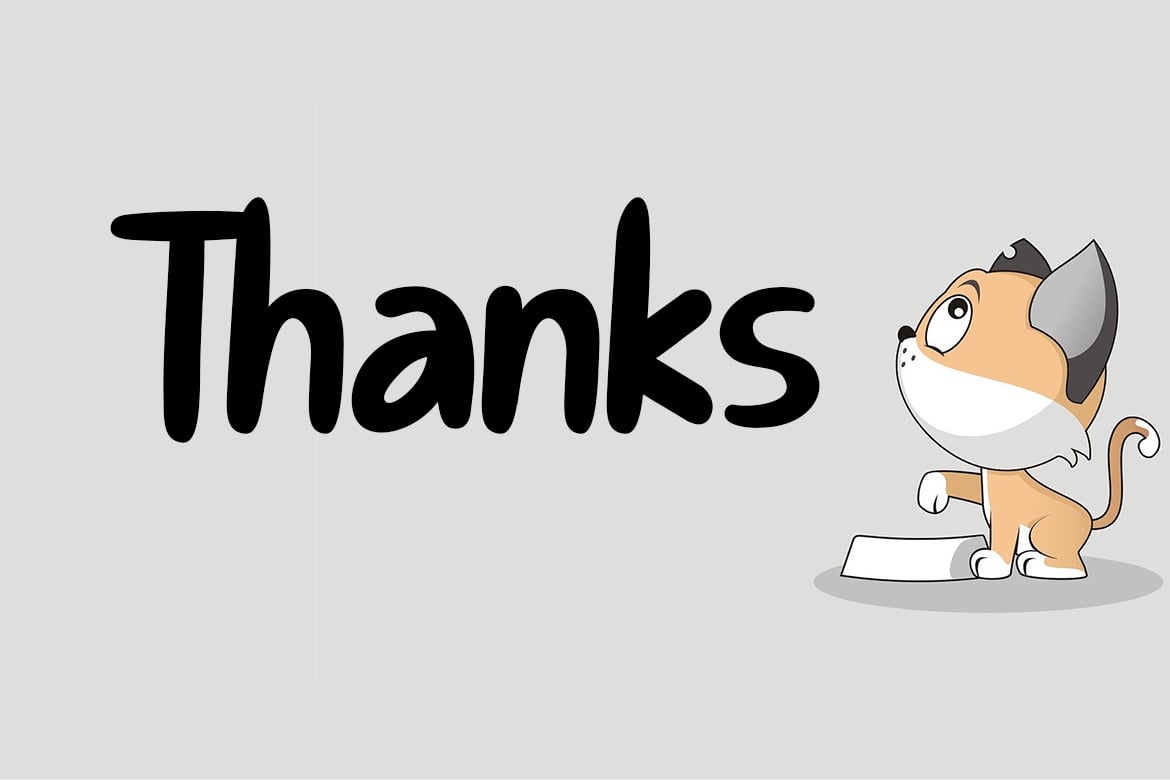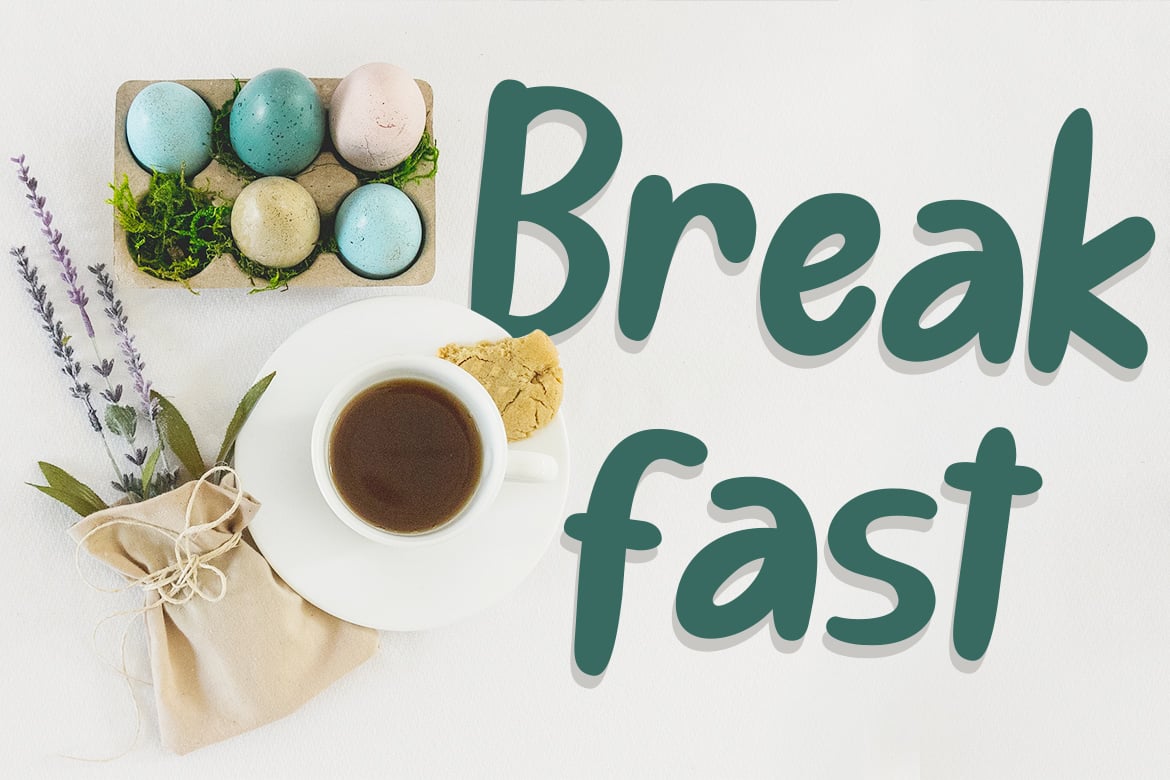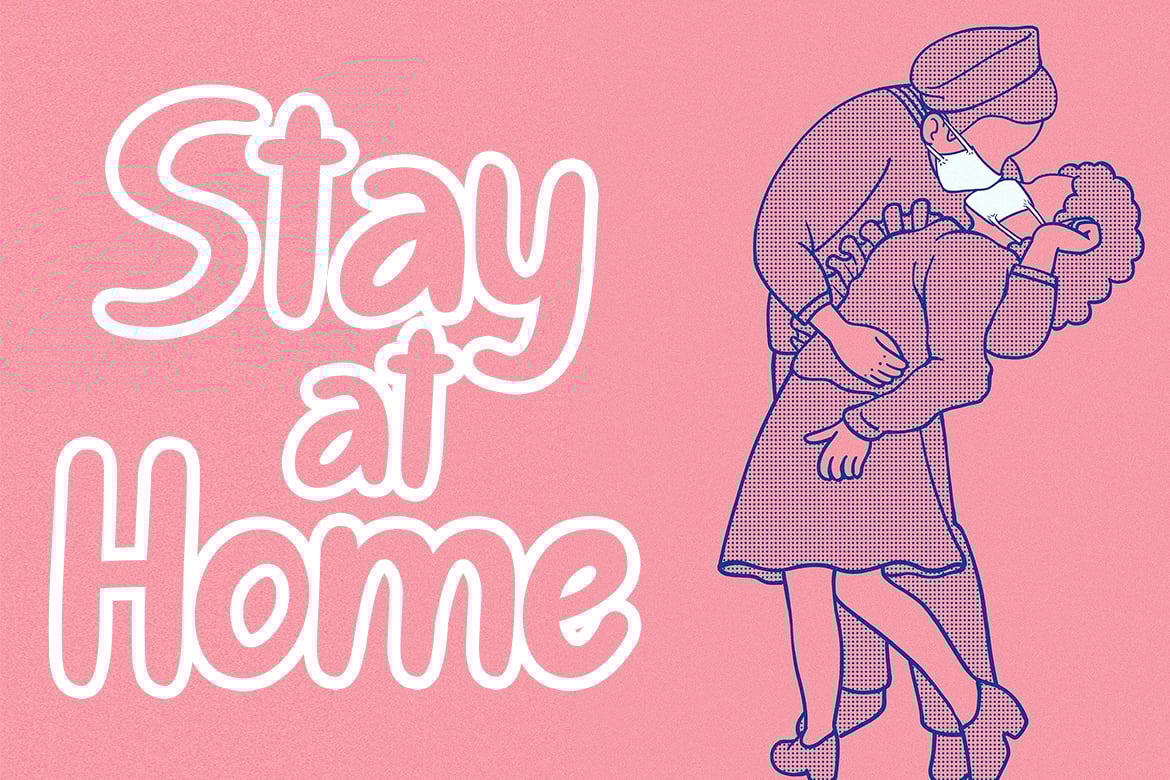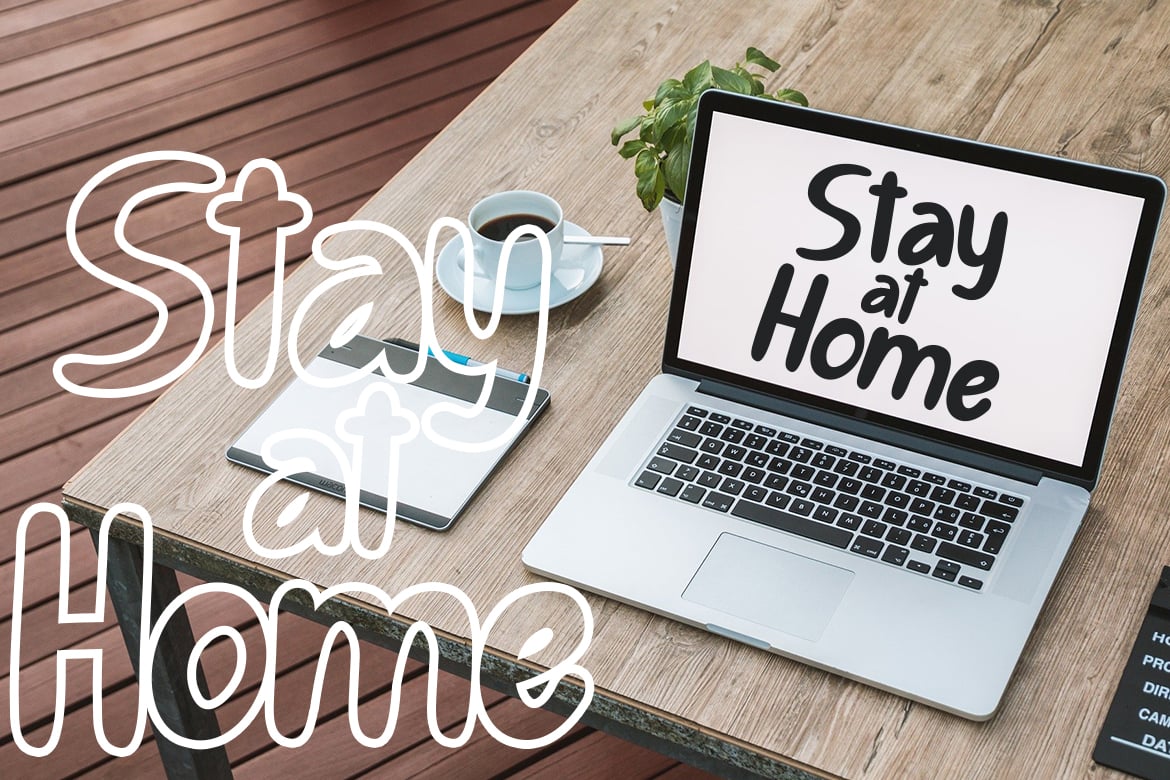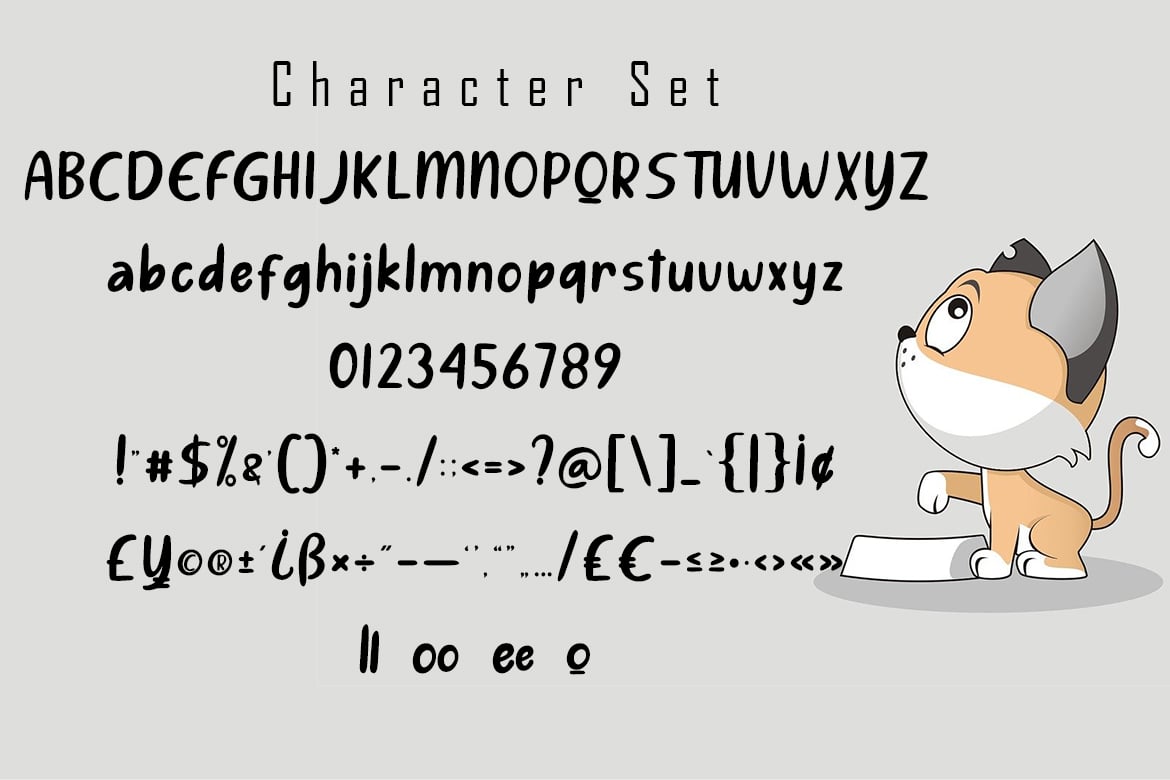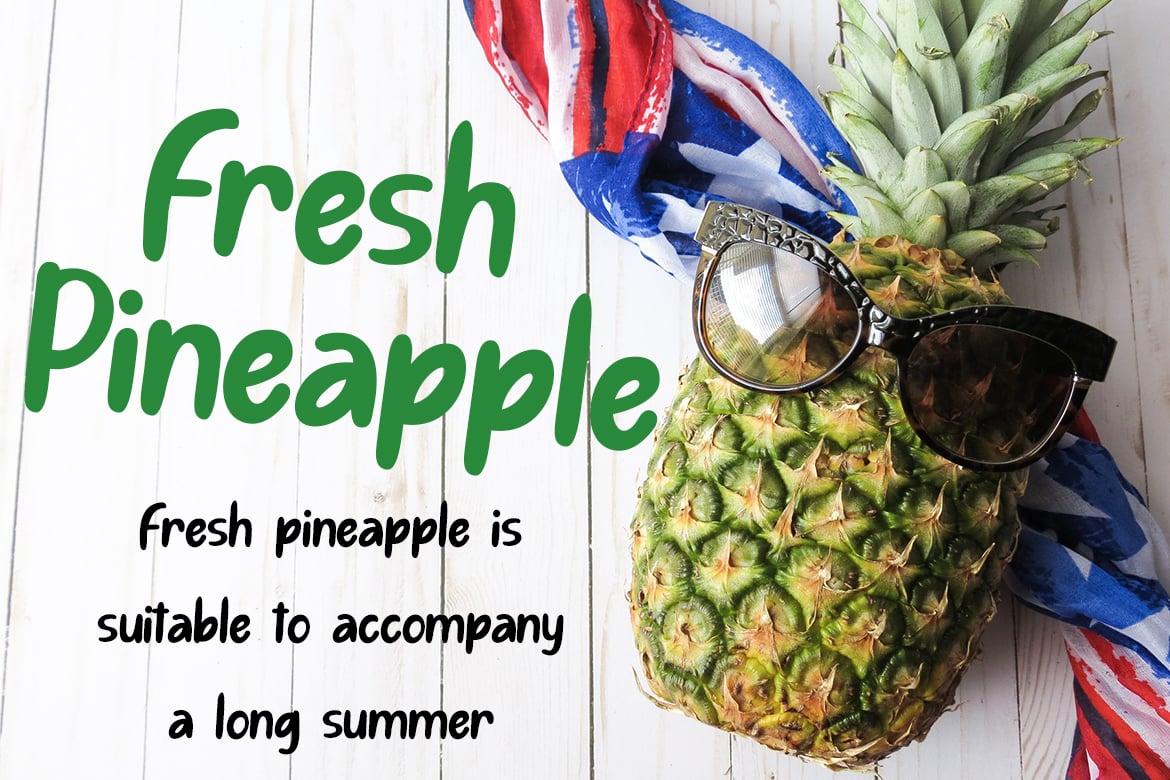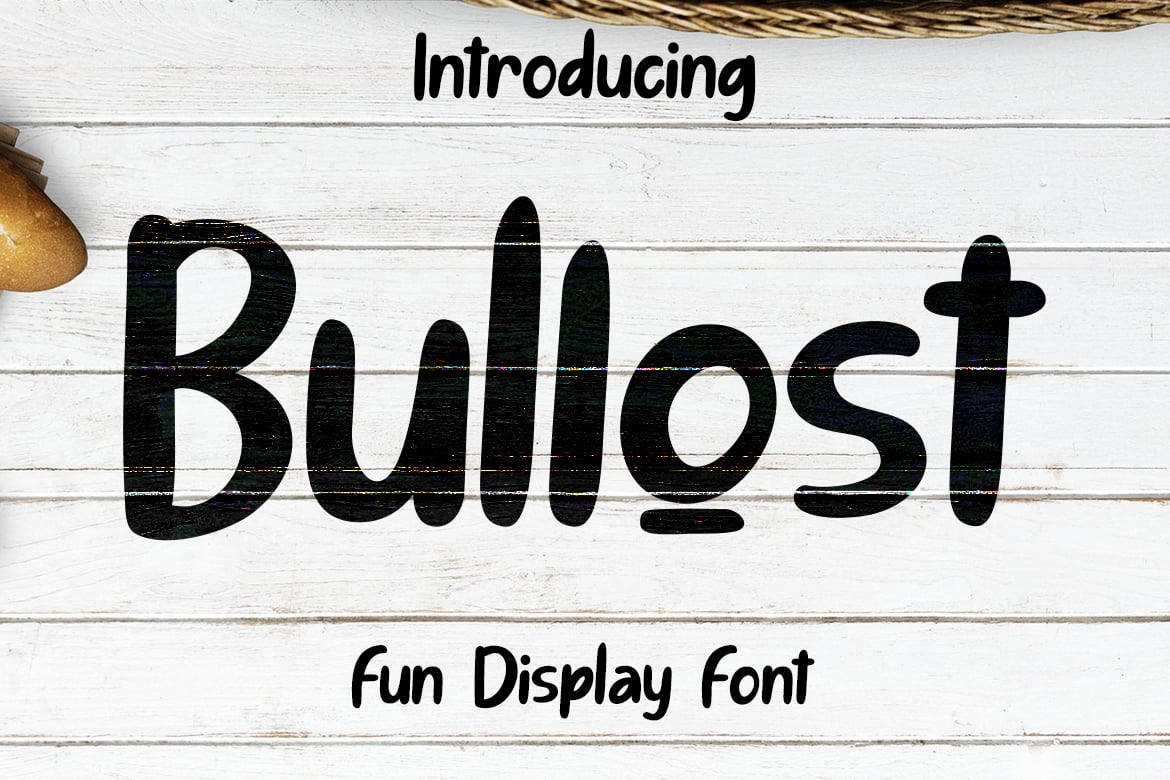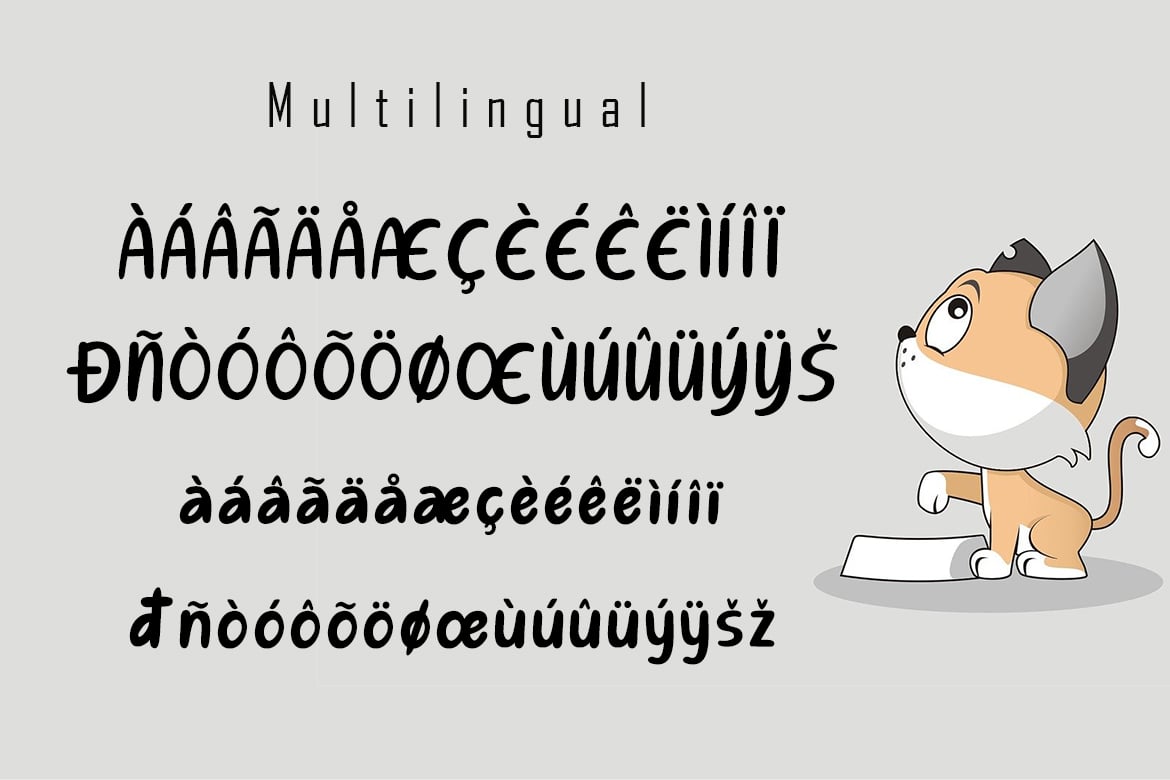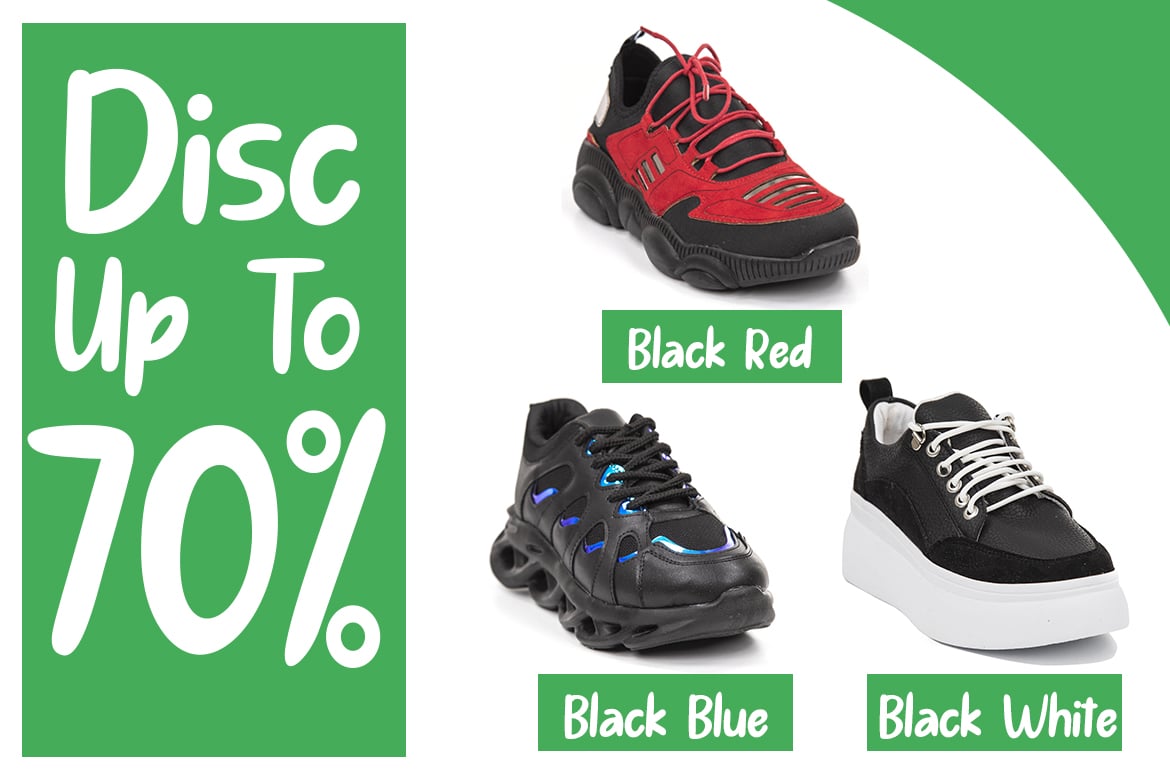
Bullost Fun Display Font
hello introduce our new font called “Bullost”
Bullost is a fun display font that is unique, funny and serious that there are encoded and multilingual basic PUA
Ligature
Basic Latin Language Support (AÀÁÂÃÄÅCÇDÐEÈÉÊËIÌÍÎÏÑOØÒÓÔÕÖUÙÜÚÛWYÝŸÆß )